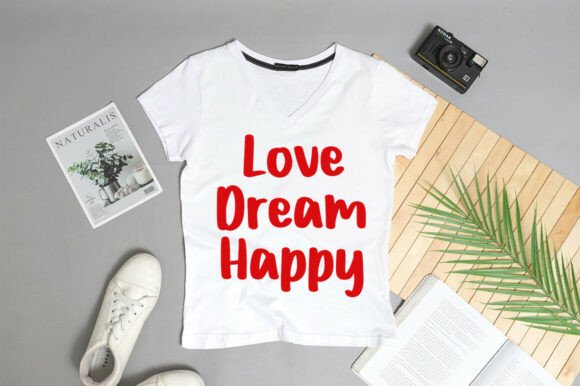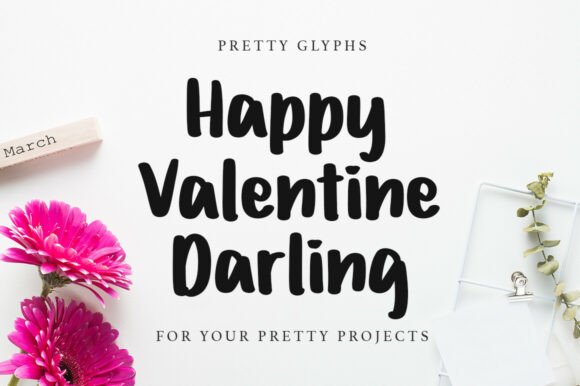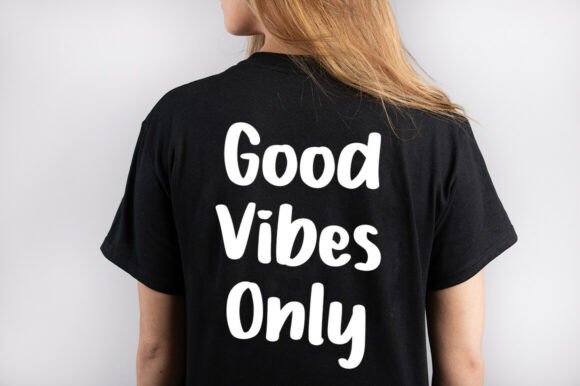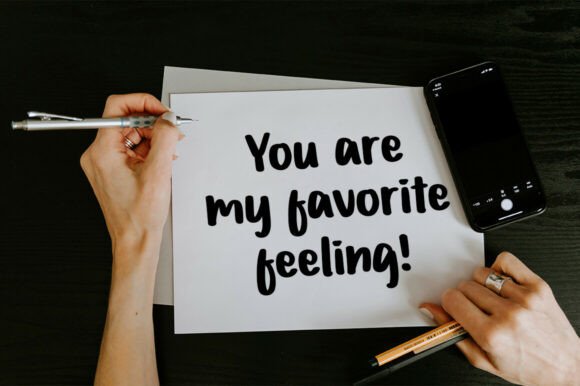
Introduction to Maison Brush Font
Experience the vigor and flair of the handwritten brush font, meticulously shaped to radiate daring, eloquent style.
Make a heavy-duty statement with Maison Brush font, a high-impact, bold typeface that looks like it was created with a thick ink marker or house-painterโs brush This Maison Brush typeface offers maximum visibility with its ultra-heavy weight and slightly textured edges, giving it an urban, industrial feel.
Key Features of Maison Brush Font
Why Choose Maison Brush Font?
Maison Brush Font offers exceptional quality and versatility, making it a valuable addition to your design toolkit. Whether you’re creating for personal projects or commercial use, Maison Brush Font delivers professional results.